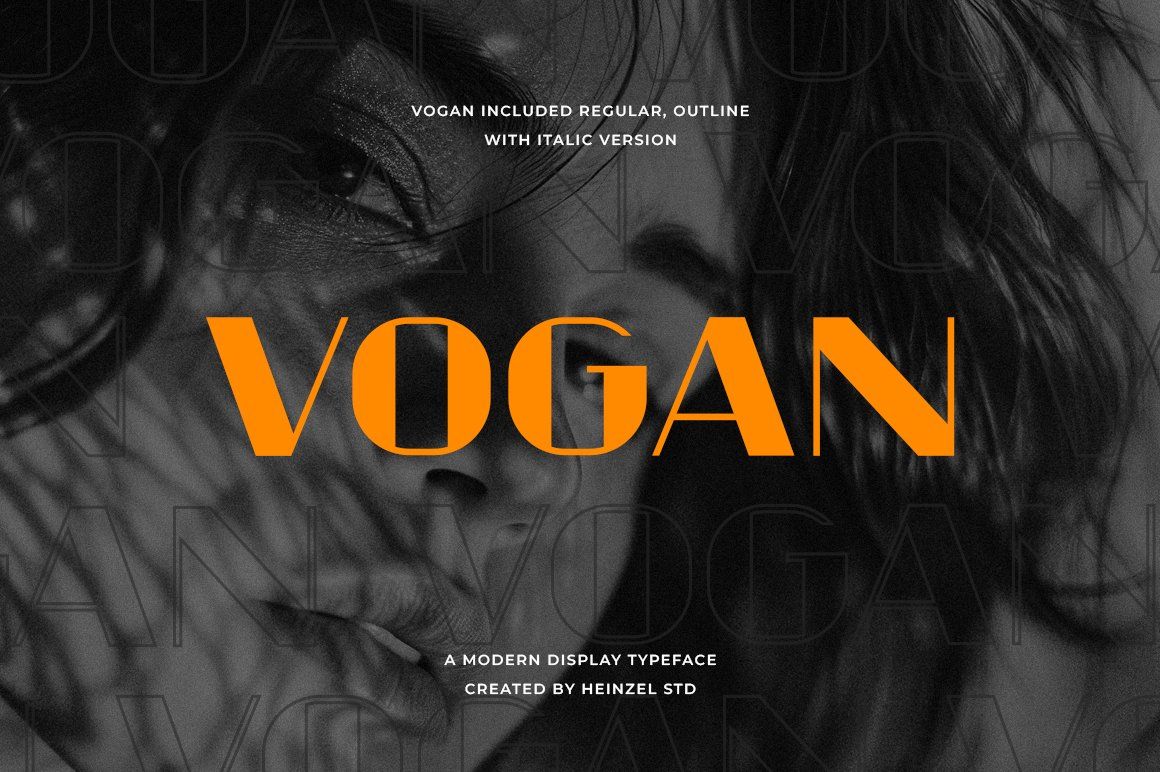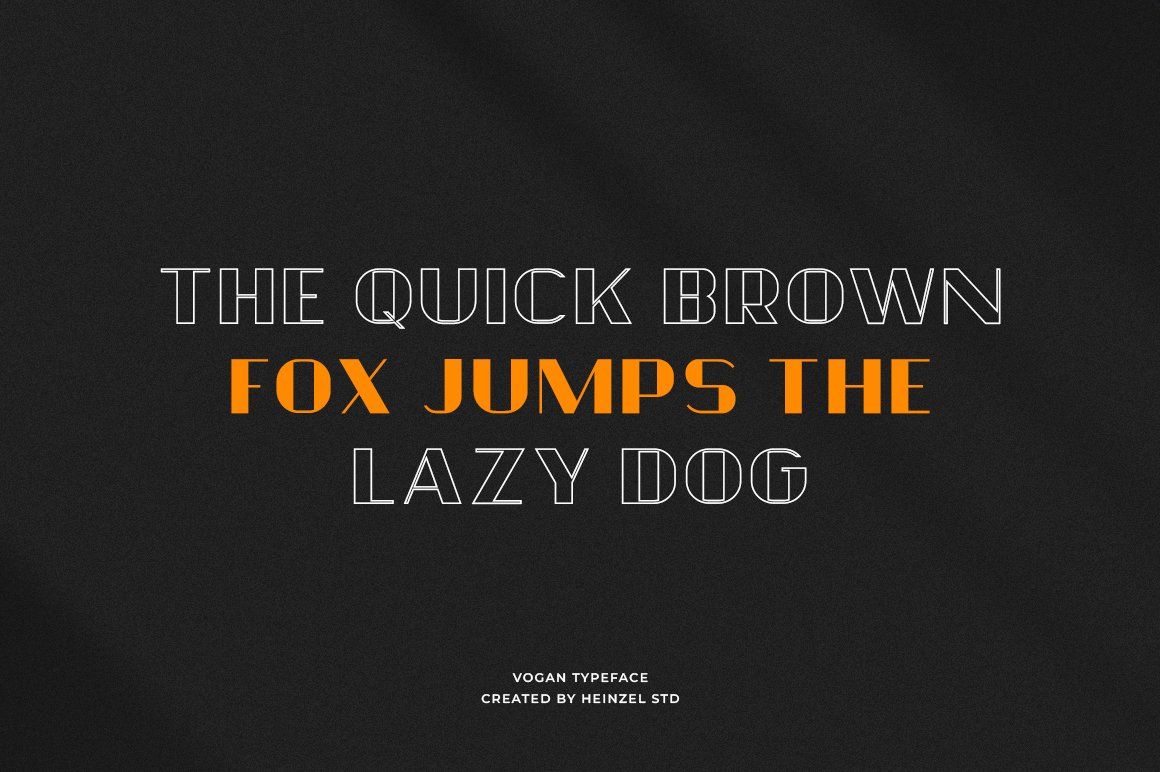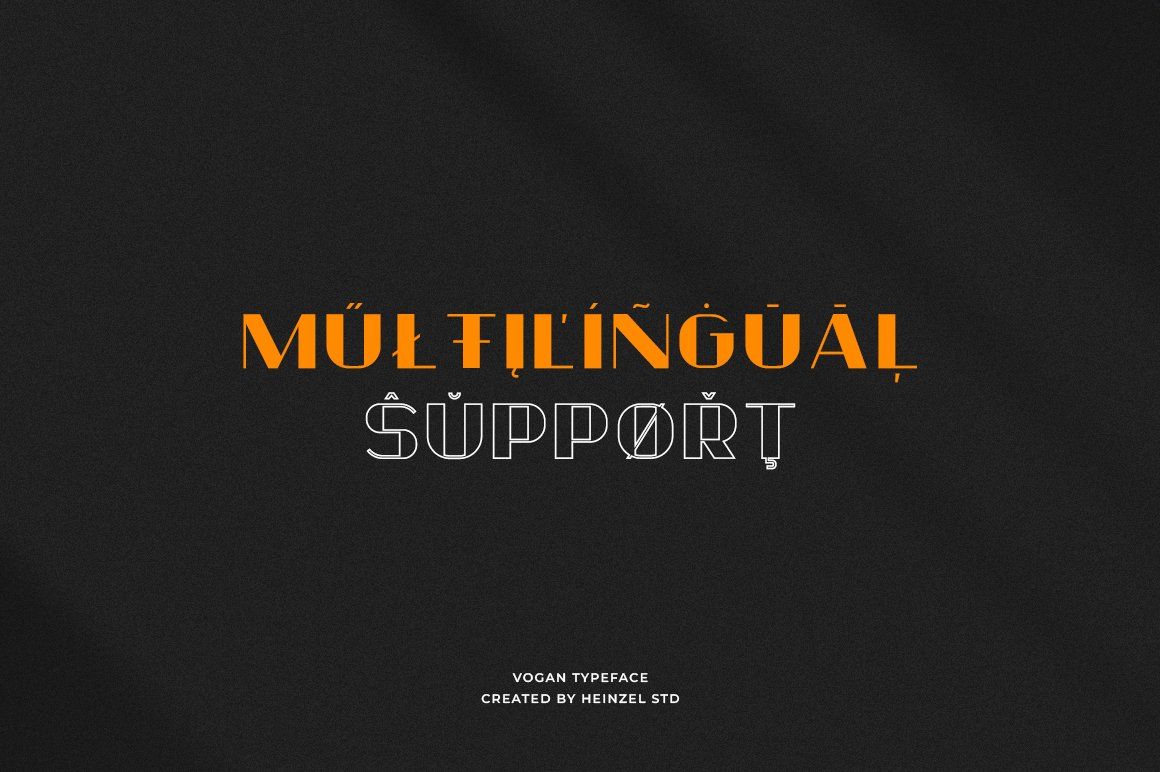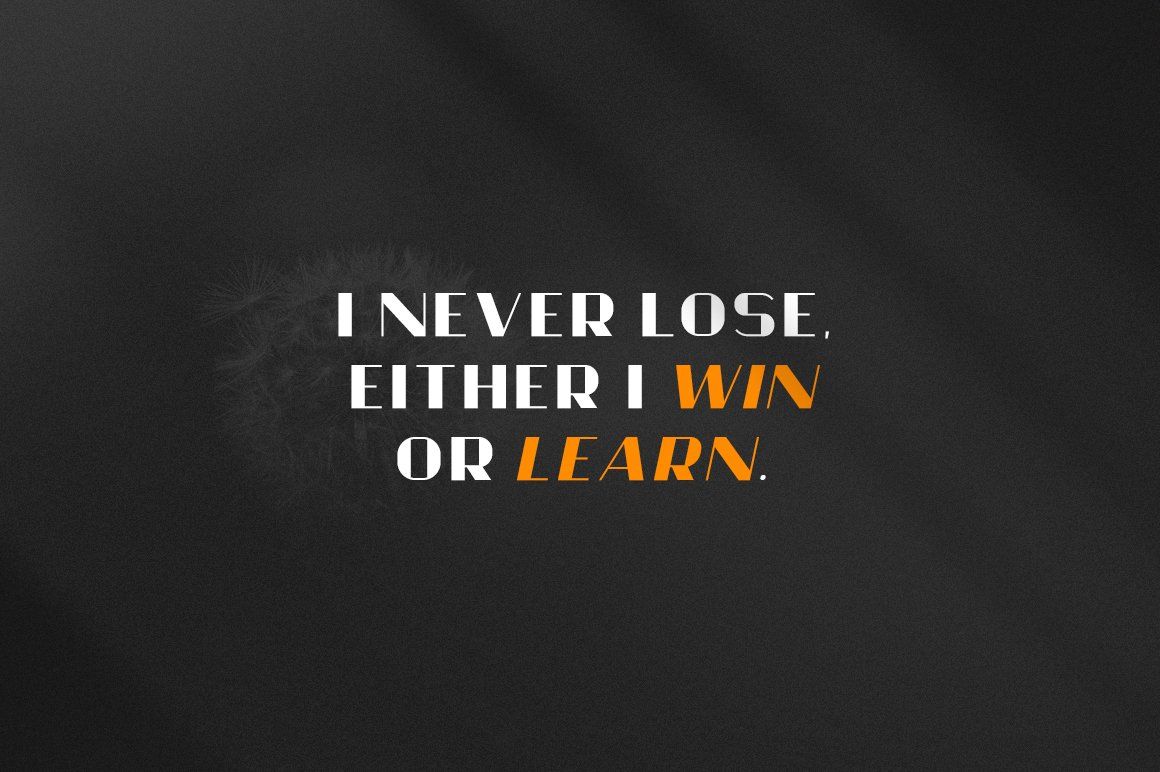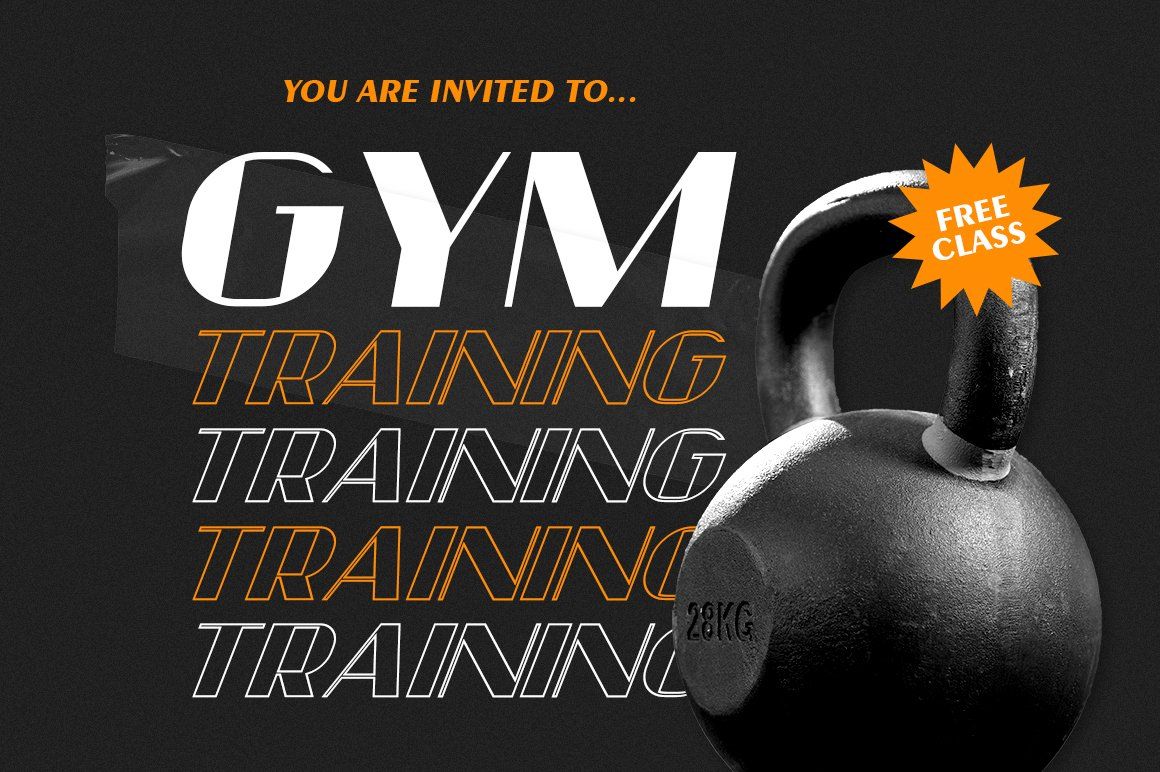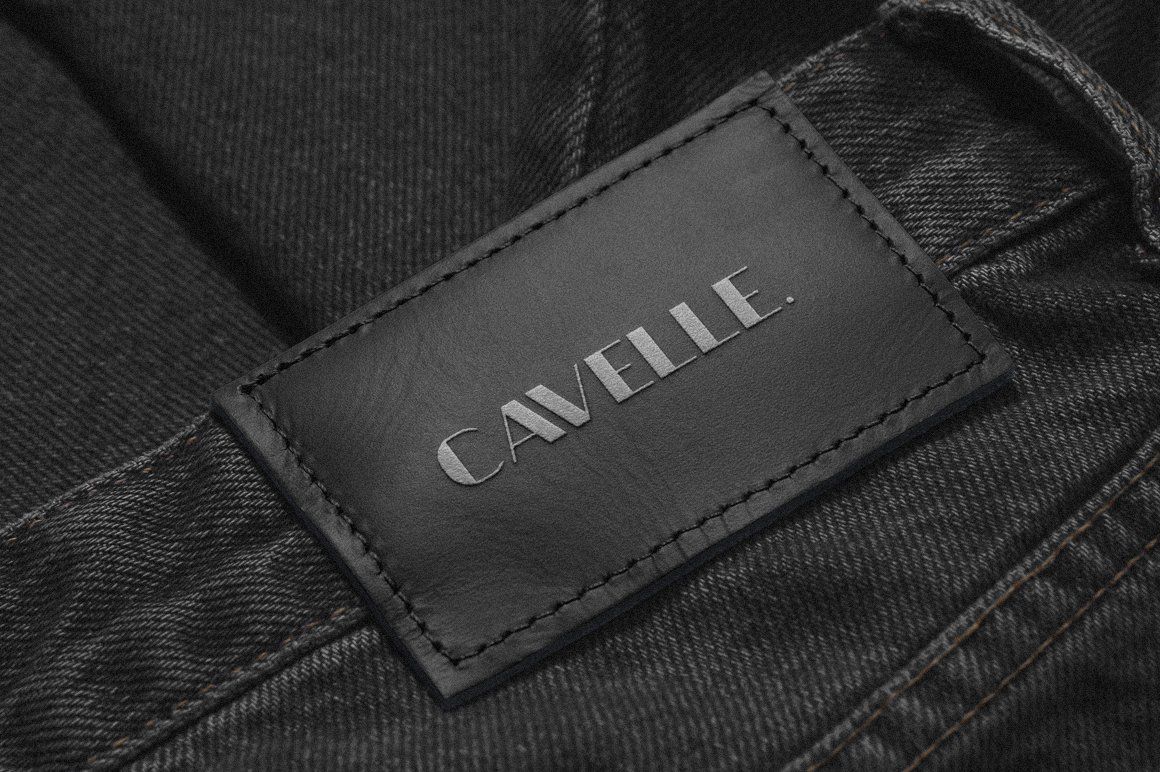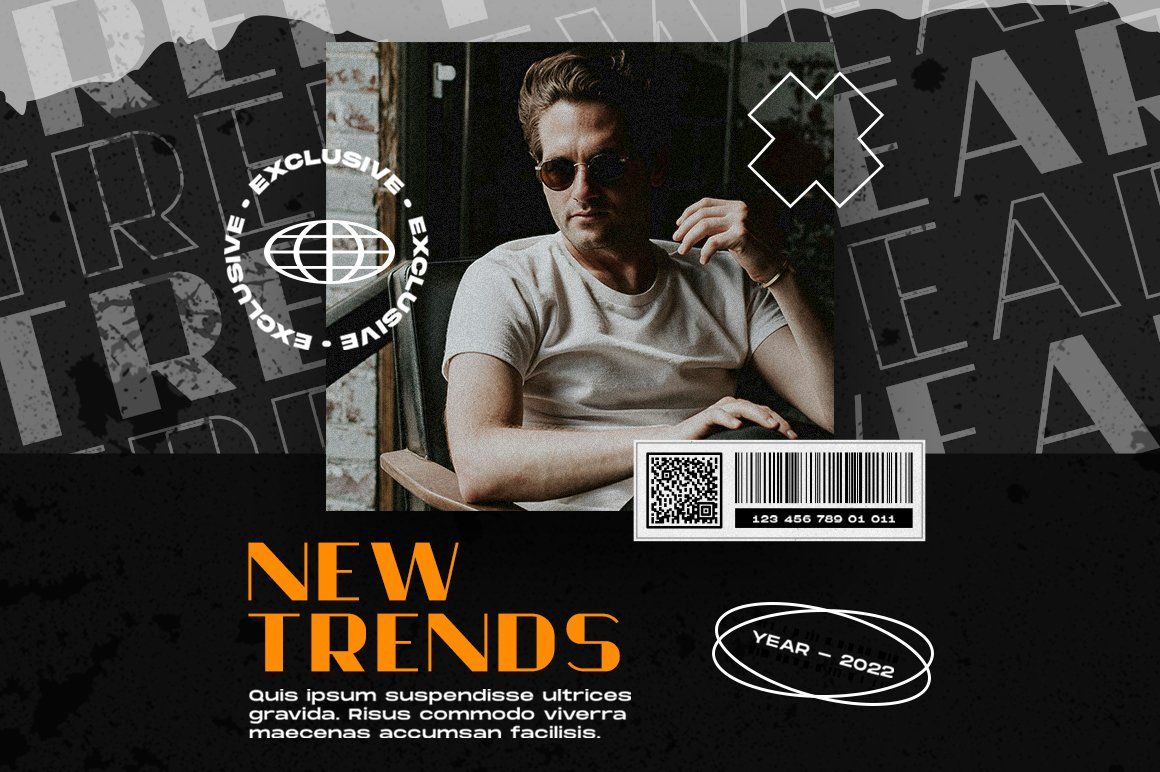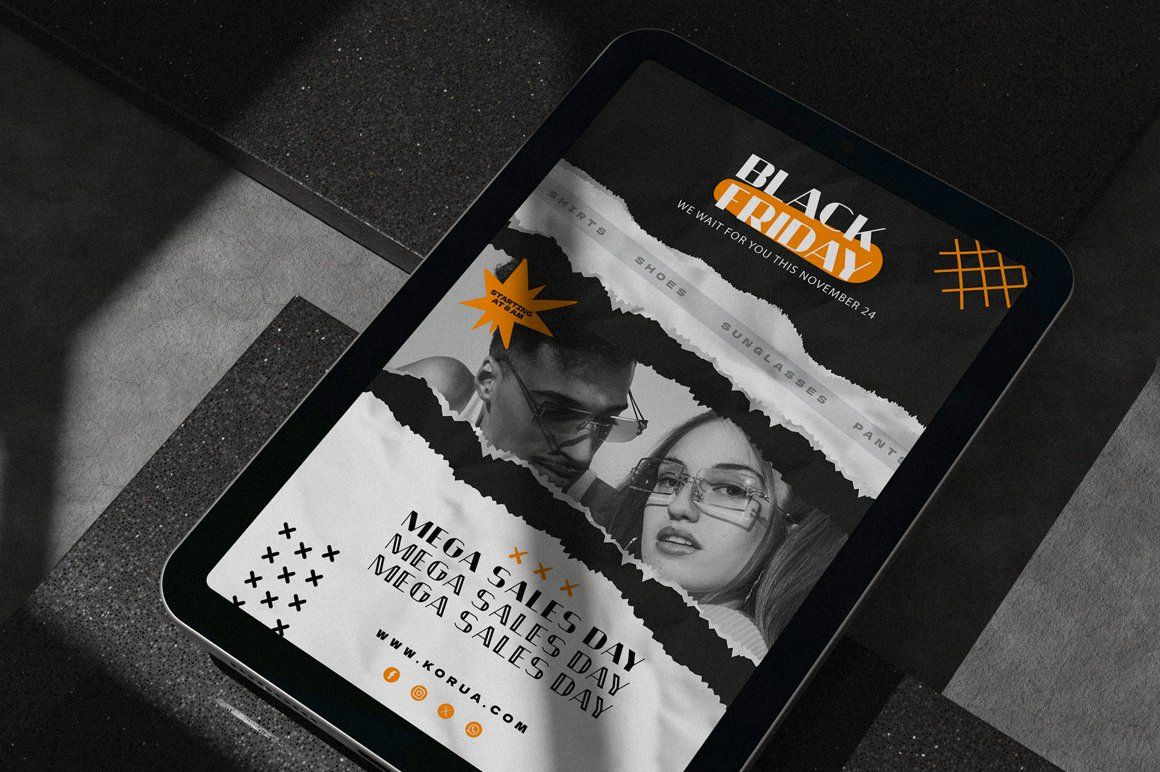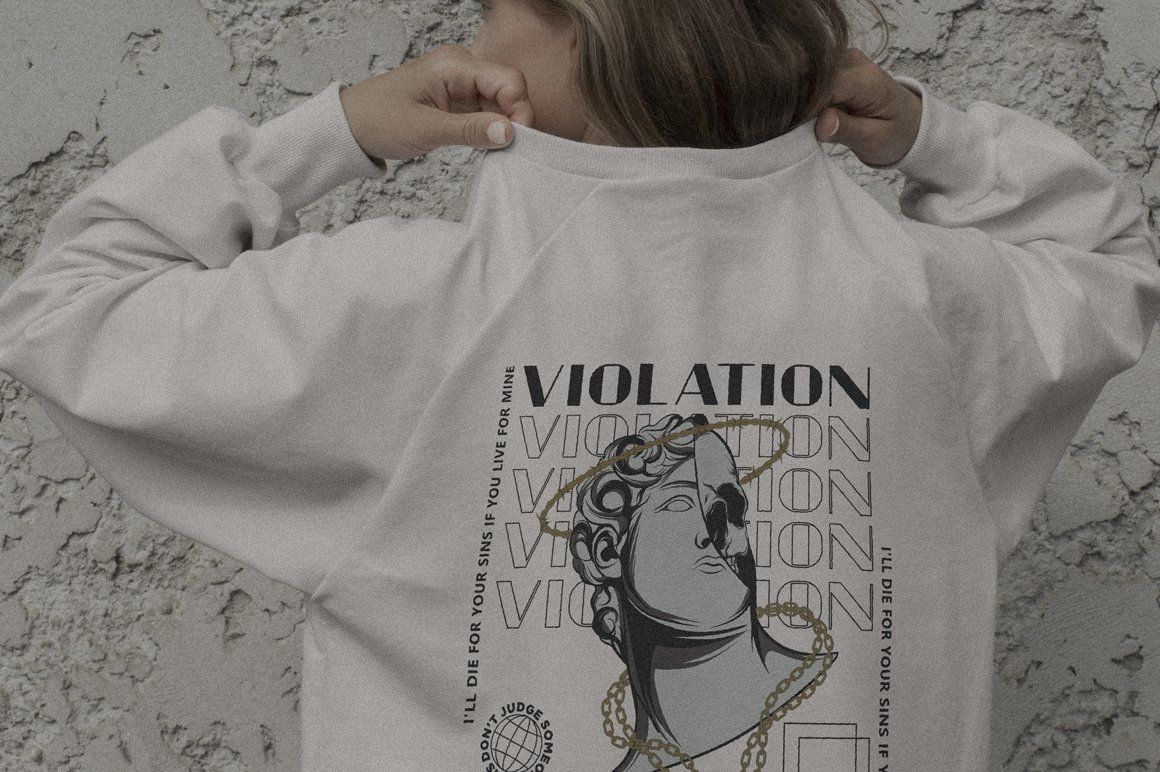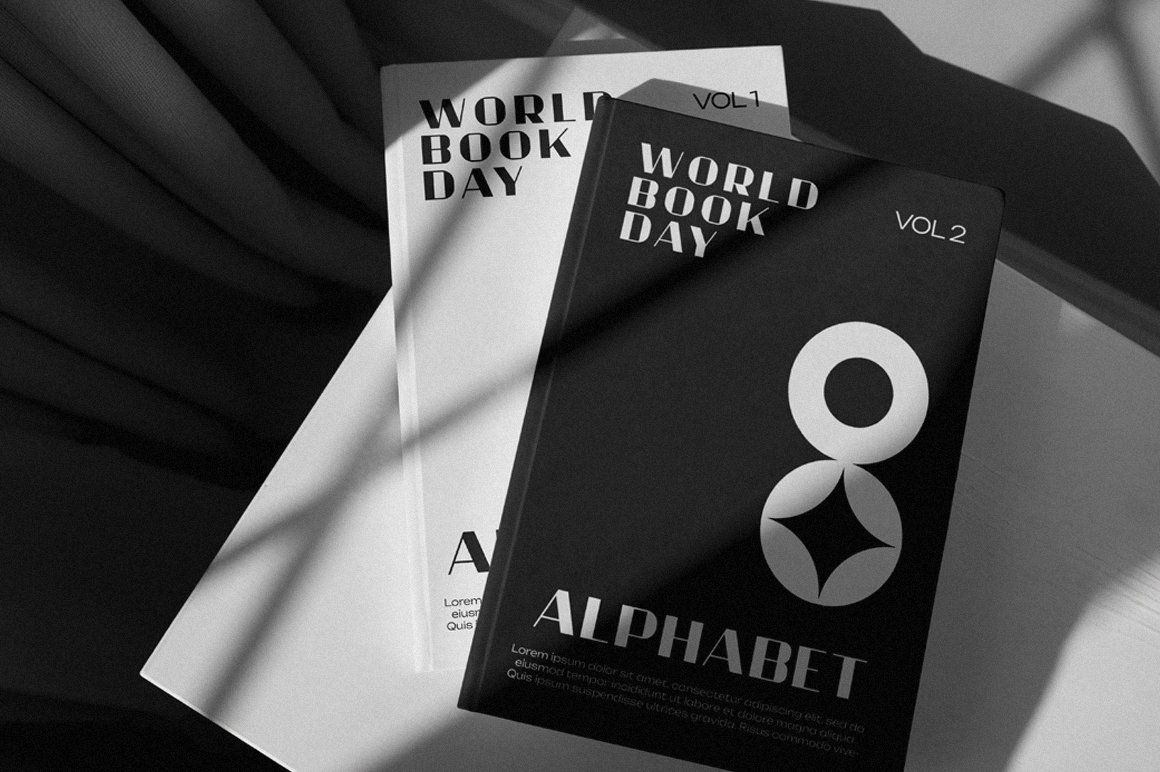
Vogan is a modern display typeface designed to bring a bold, sophisticated, and fashion-forward character to contemporary typography. With its distinctive geometric construction, sharp cuts, elegant proportions, and high-contrast details, Vogan creates a strong visual identity while maintaining a refined and minimalist aesthetic.
The Vogan font family includes Regular and Outline styles, both with italic versions, giving you the flexibility to create everything from striking headlines and editorial layouts to elegant branding and modern fashion designs. Its unique letterforms work especially well when typography needs to become the main visual element.
Perfect for fashion branding, luxury logos, editorial design, magazine covers, posters, advertising, packaging, social media graphics, album artwork, invitations, and modern identity projects.